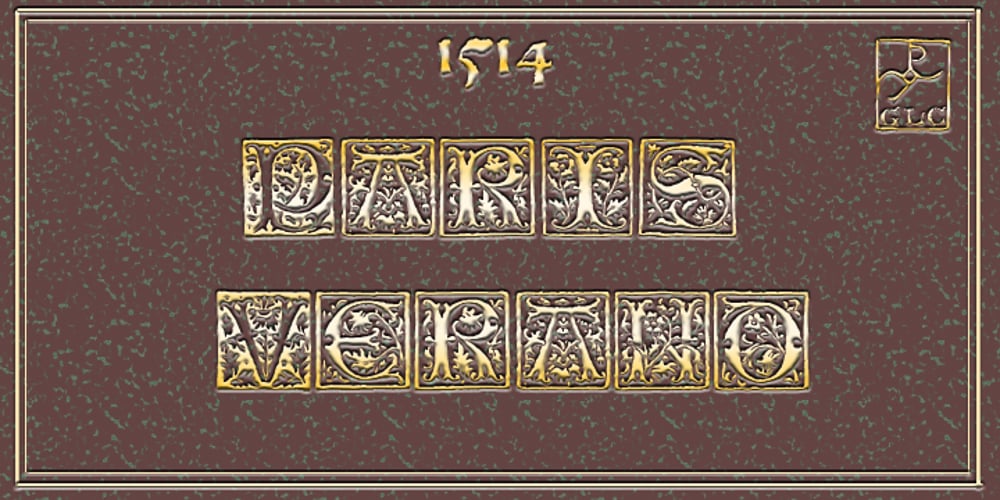
1514 Paris Verand Font Family was designed by published by GLC. 1514 Paris Verand contains 1 styles and family package options. This set of initial decorated letters was inspired by a font in use in the beginning of 1500s in Paris. Exactly, we have used the set that Barthélémy Verand employed for the printing of Triumphus translatez de langage Tuscan en François, (from “Triumph” of Petrarque) in the year 1514. Some letters, lacked, have been reconstructed to propose a complete alphabet. It appears that the printer used some letters to replace others, as V, turned over to make a A, or D to make a Q. The original font’s letters were drawn in white on a black background only, but it was tempting to propose a negative version in black on white. It is used as variously as web-site titles, posters and flyers design, publishing texts looking like ancient ones, or greeting cards, all various sorts of presentations, as a very decorative, elegant and luxurious additional font. This font supports strong enlargements remaining very smart and fine. It’s original medieval hight is about one inch equivalent to about four lines of characters. This font may be used with all blackletter fonts, but works particularly well with 1543 Humane Jenson, 1557 Italic and 1742 Civilite, without any anachronism.